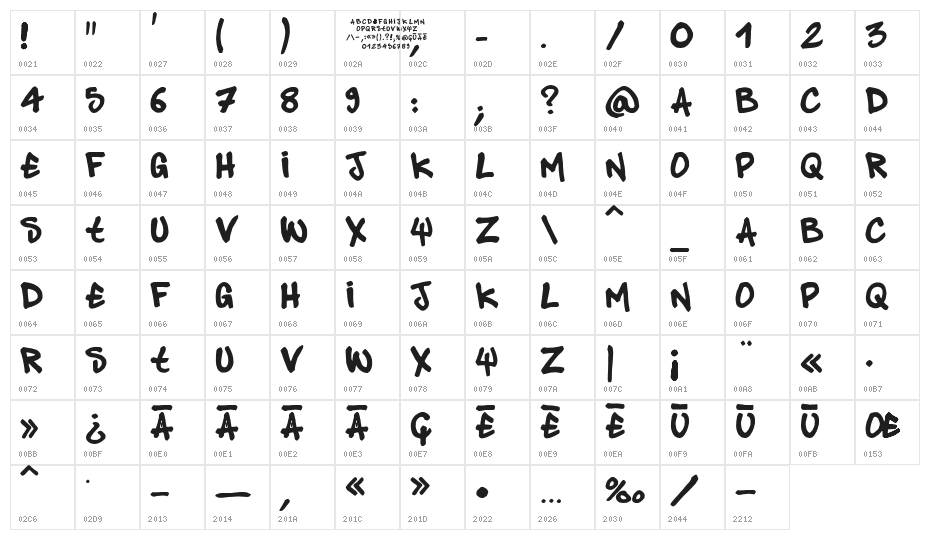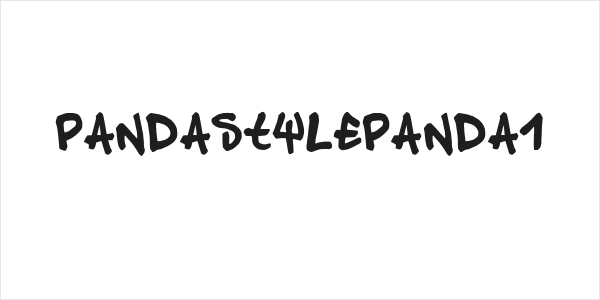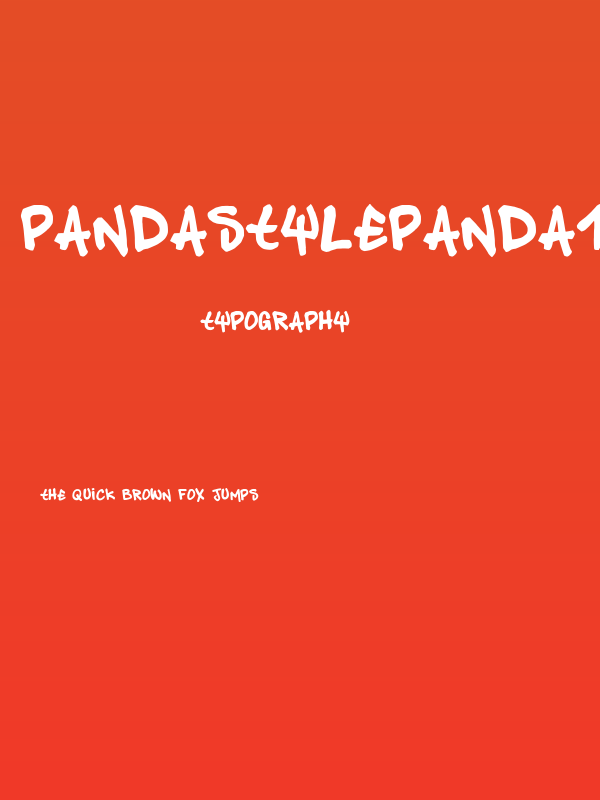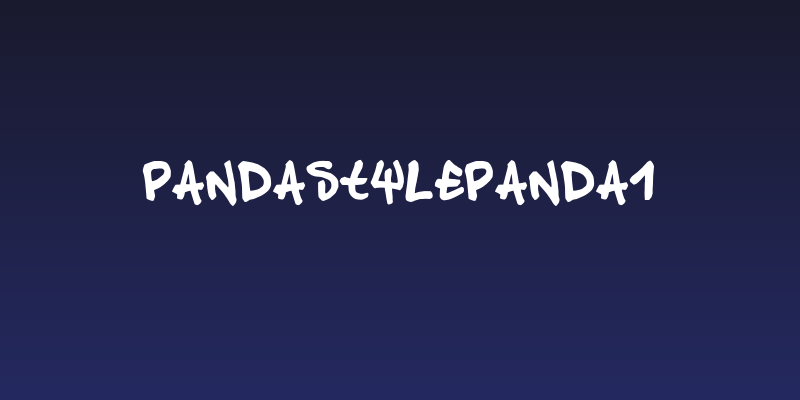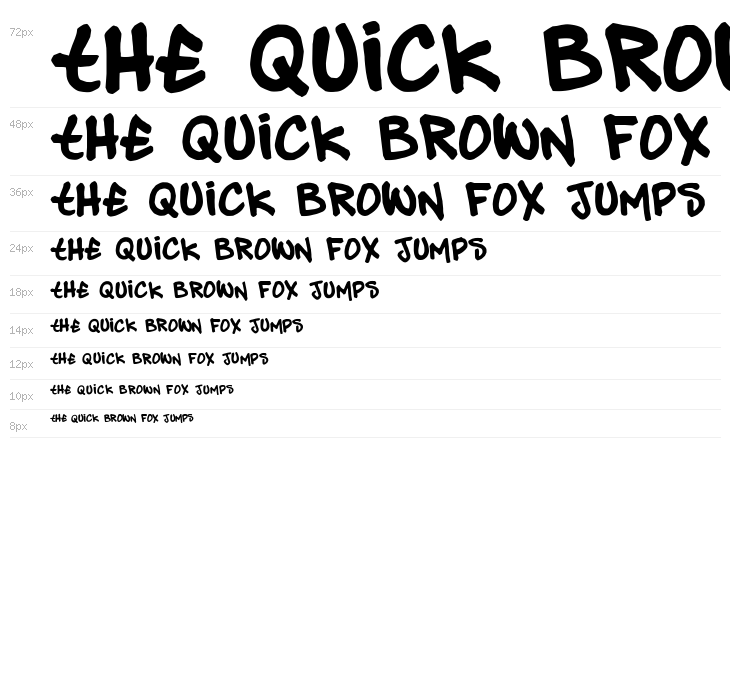
pandastylepanda1 Font
pandastylepanda1 Description
This font features a playful and bold handwritten style, characterized by its thick strokes and casual, informal appearance. The letters are slightly slanted, giving a dynamic and energetic feel. The uppercase and lowercase letters maintain a consistent style, with rounded edges and a slightly irregular baseline, adding to its charm. The numbers and special characters follow the same design principles, ensuring a cohesive look across all elements. This font is ideal for projects that require a fun and approachable aesthetic, such as children's books, playful branding, or casual invitations.
| Proposed Projects | Ideal for children's books, playful branding, casual invitations, and creative posters. |